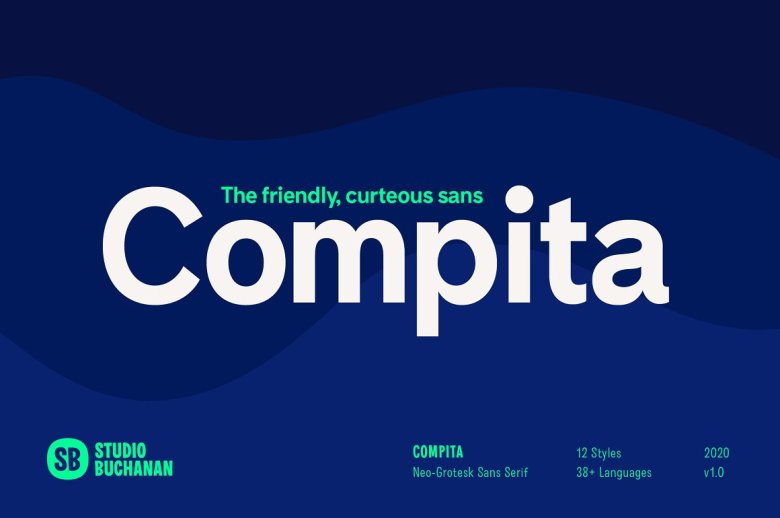
Compita Font
Compita was a typeface which began life as a love-letter to Berthold’s classic Neo-Grotesk But for every rigid, Neue-Haasism there existed an equal and opposite amount of humanist attributes–and a deliberate dose of gut feeling It has some over-emphasised features and terminal endings which help to create its friendly personality, but sits them on a slightly condensed overall width Together they help each balance the other out producing a face which feels welcoming and professional at once.
Aff-essional perhaps? The character set contains everything a modern day designer could need, including diacritic support for over 30 languages And It’s packed full with the usual opentype features(minus the ones which most will probably ignore) – Small caps, multiple number sets, and discretionary ligatures to name just a few Whether it’s used as a display face, or as the one you can depend on for body text as well,
Compita will cover a range of applications. Whether set online, on screen or in print – It’s proof that not everything has be Montserrat and Raleway.
Compita Sans Serif Font Family